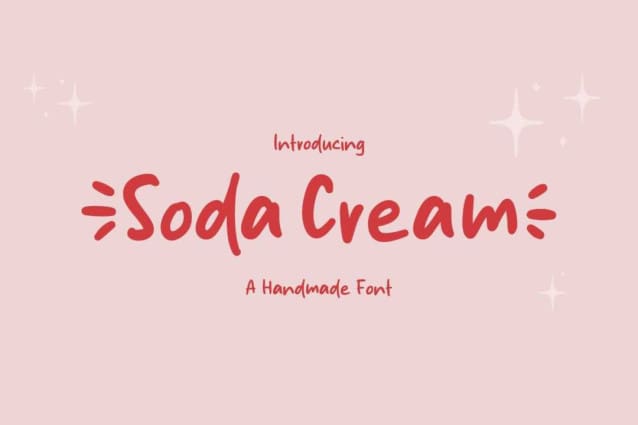
Soda Cream Font
Soda Cream Font is a cool and fun handwritten font. It looks both cute and jolly and it will enhance each of your designs. The only limit is your imagination. Add this quirky font to each of your creative ideas and notice how it makes them come alive!